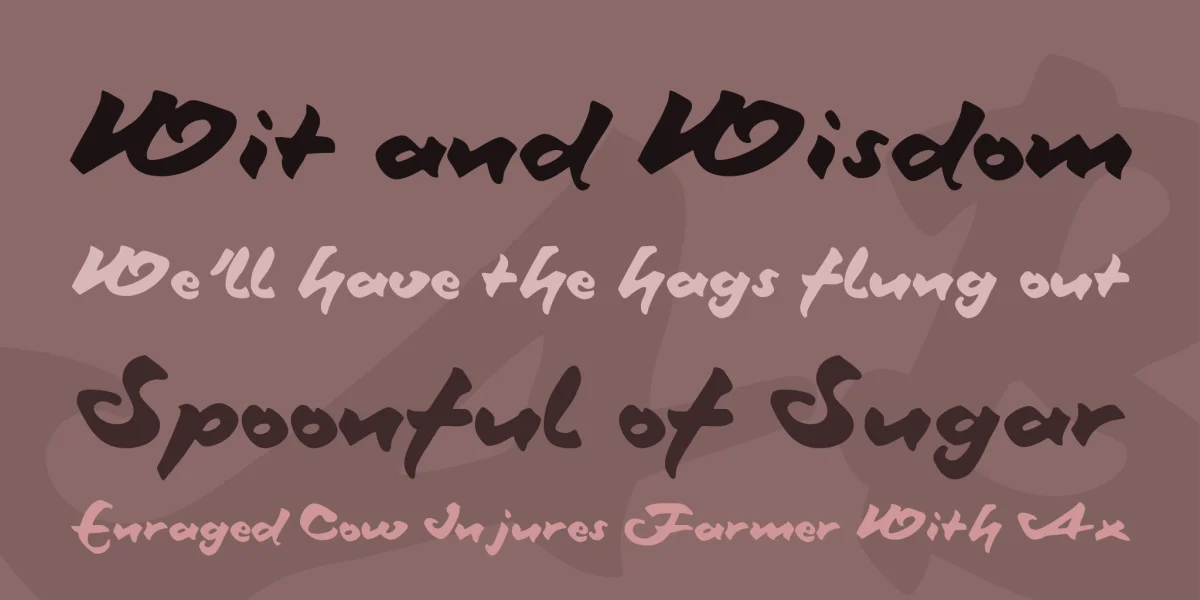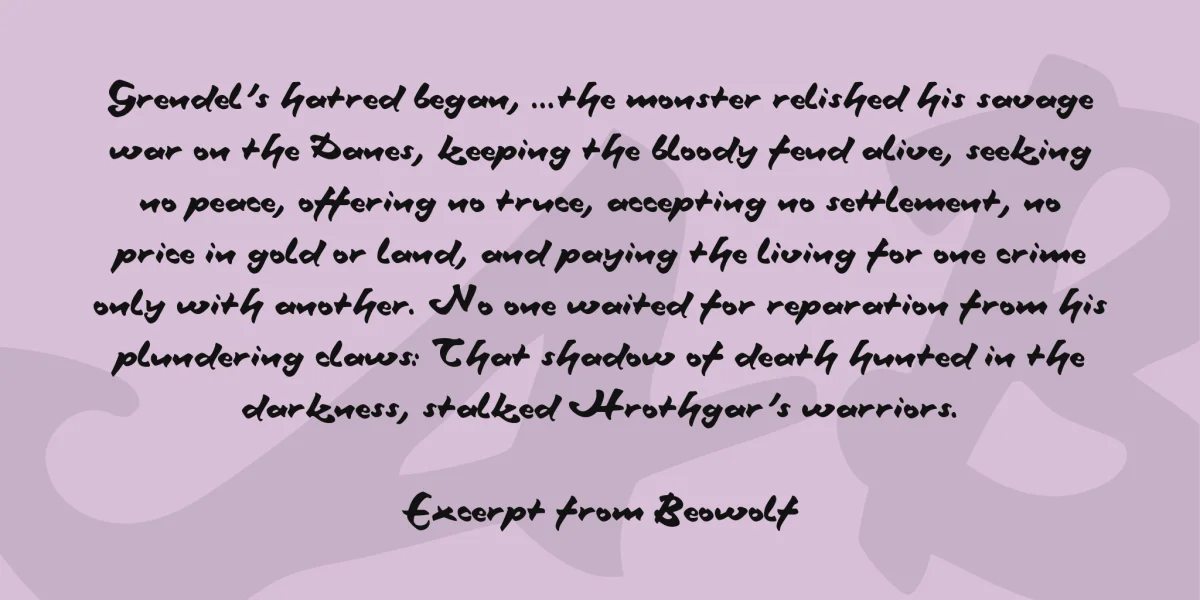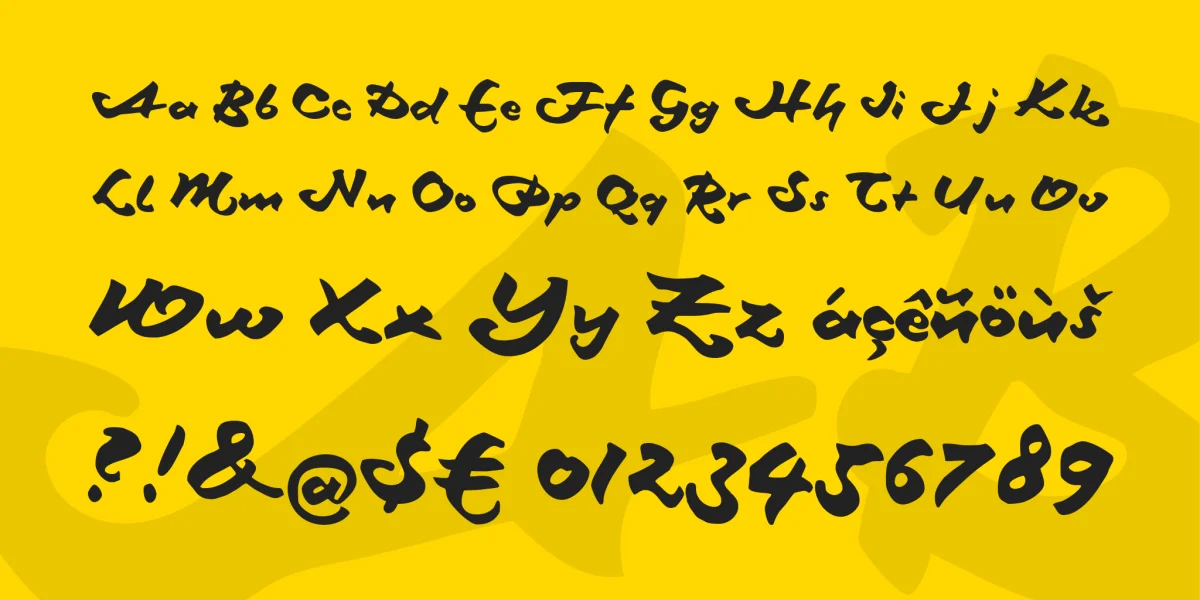
Google translation of the original description in German: While I was at it, to draw a font after a font-pattern-card by the Bauer foundry, I immediately had a go at a second one. This time a pretty casual brushed cursive, designed in 1956 by Peter Schneidler and manufactured in Frankfurt. The Bauer foundry describes the font as: Maxim is a brush script and exceptionally expressive. Well, unusually it is already, but maybe she still makes one or the other something fun.